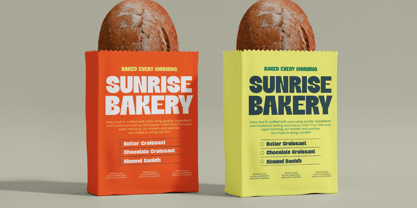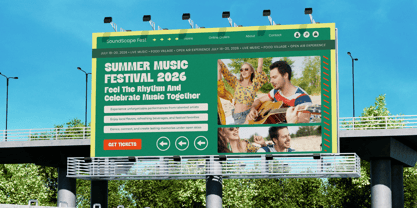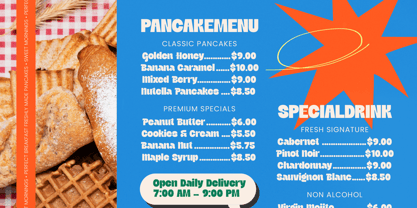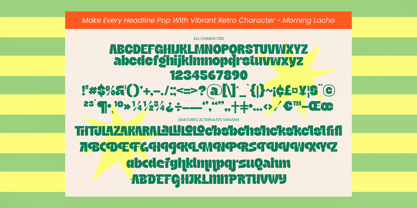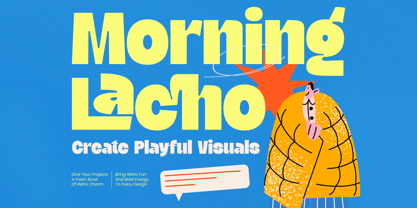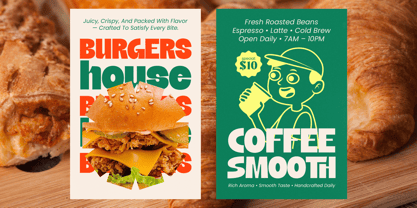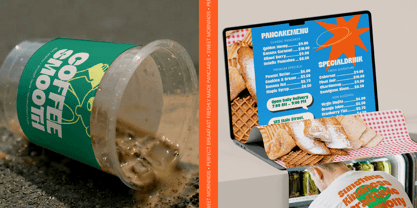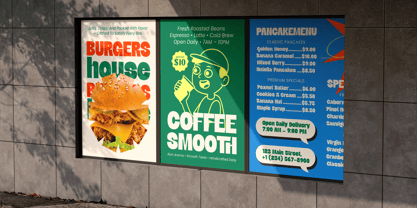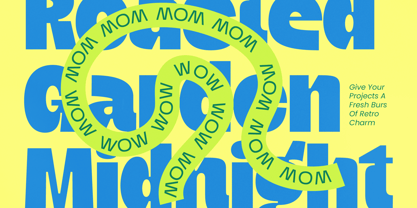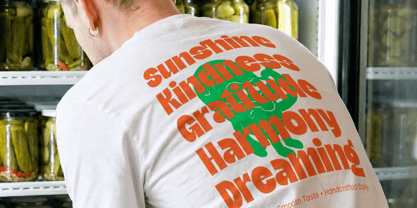
Morning Lacho
La famille de polices Morning Lacho a été conçue par Heru Utama Putra et publiée par Timelesstype Studio. Morning Lacho contient 2 styles et options de package familial. En savoir plus sur cette famille
Command attention instantly with a typeface designed for maximum visual impact. Morning Lacho - Chunky Display Sans is a high-energy powerhouse that blends retro charm with a modern aesthetic. Its thick, heavy strokes and bold proportions are specifically crafted for headers that need to pop, making it a definitive choice for any designer looking to inject a fresh burst of personality into their work.
Unlock a world of creative possibilities with a robust set of professional typographic features. Morning Lacho - Chunky Display Sans is packed with 22 ligatures and 66 alternates, allowing for bespoke letter combinations that ensure your design remains unique. This level of customizable detail transforms standard text into a dynamic graphic element, perfect for high-end creative projects that demand a hand-crafted feel without sacrificing professional polish.